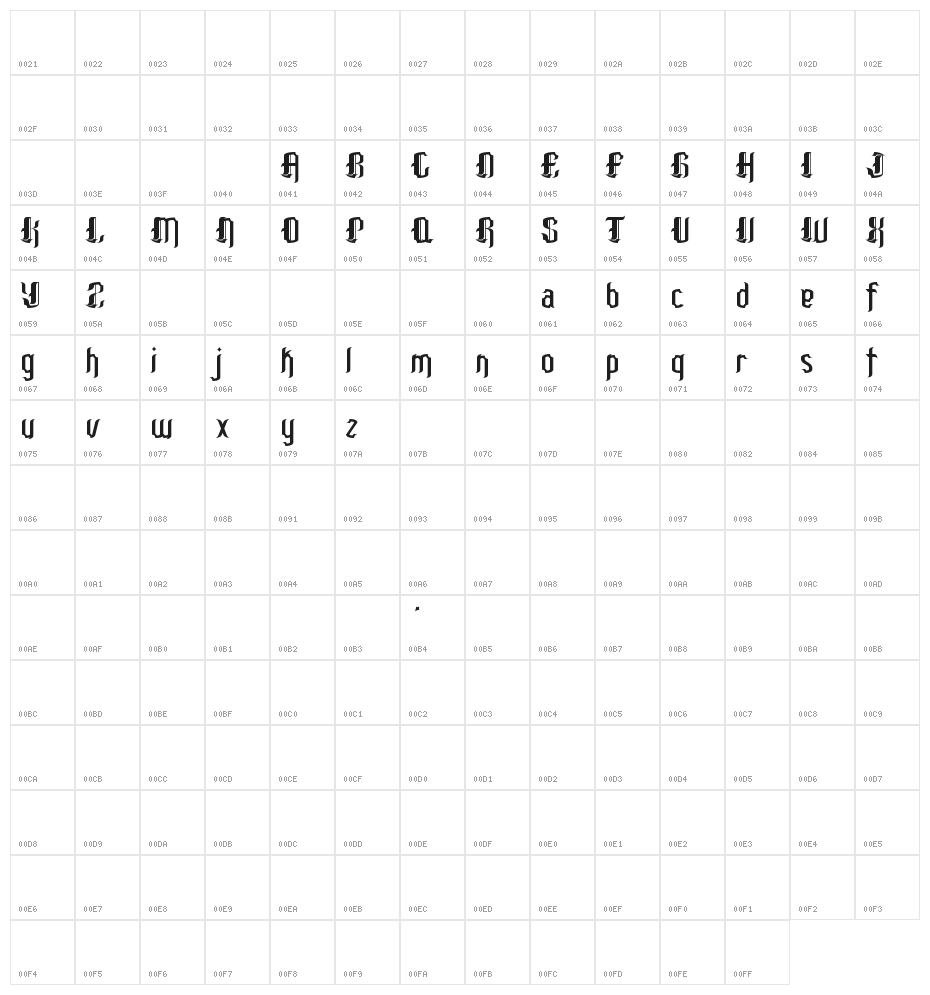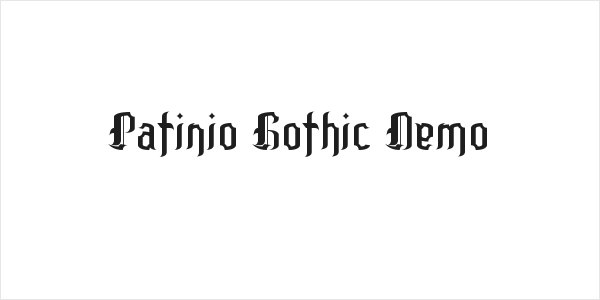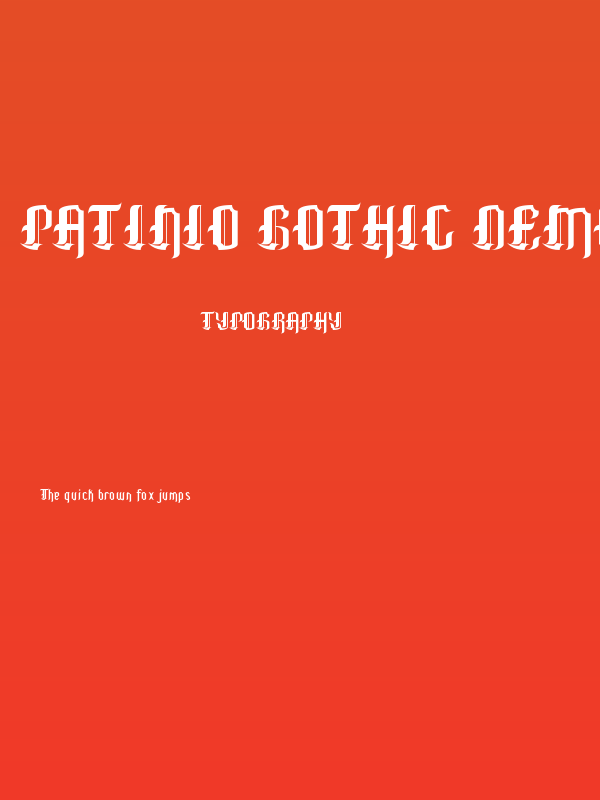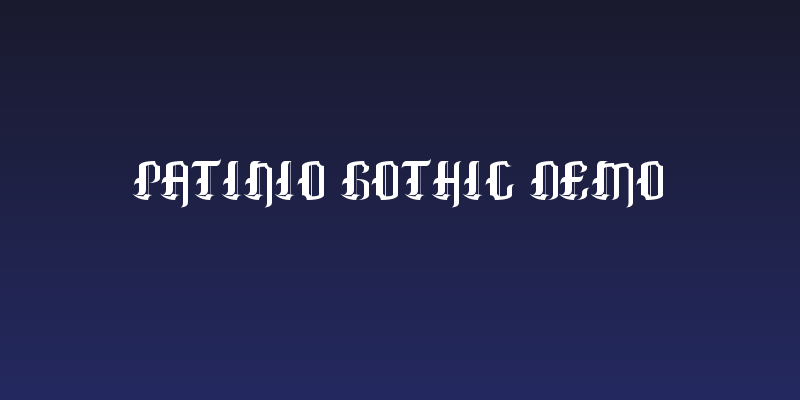
Patinio Gothic Demo Font
Patinio Gothic Demo Description
This font embodies a classic Gothic style with its sharp, angular lines and intricate detailing. The uppercase letters are bold and commanding, featuring strong vertical strokes and decorative serifs that give a sense of historical elegance. The lowercase letters maintain the same Gothic essence but with a slightly more subdued presence, making them suitable for both display and text settings. The numerals and special characters are consistent with the overall design, ensuring a cohesive look across all uses. This font is perfect for projects that require a touch of medieval or vintage flair, such as event invitations, book covers, or branding for products that aim to evoke a sense of tradition and craftsmanship.
| Proposed Projects | Ideal for event invitations, book covers, branding, and any project needing a vintage or medieval touch. |